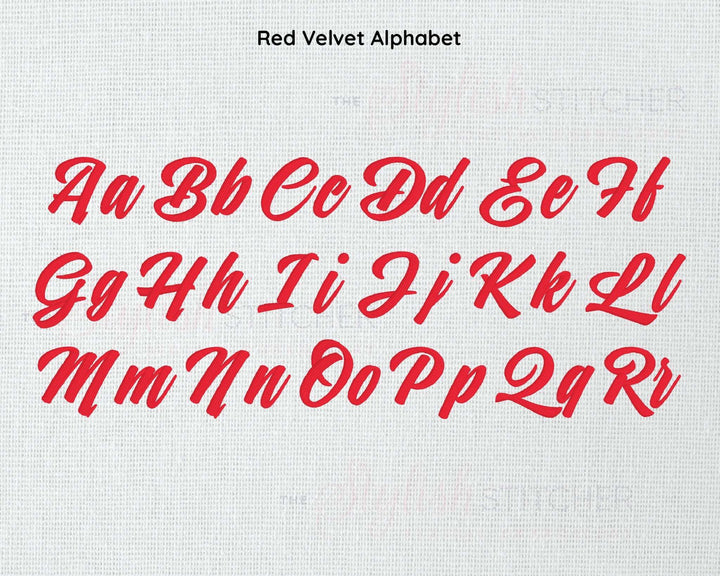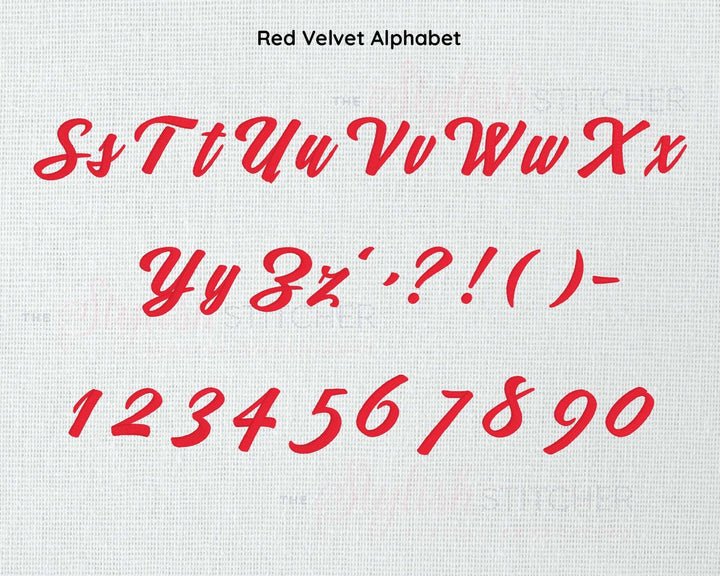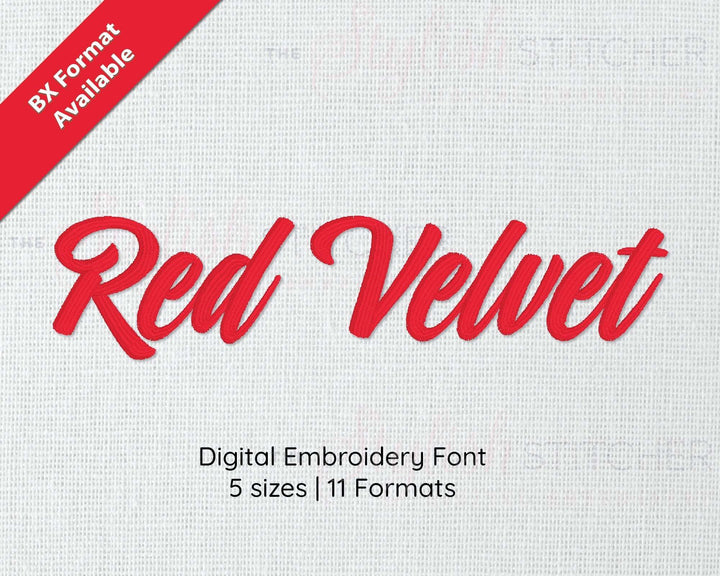
Photograph of Red Velvet embroidery font
Photograph of Red velvet embroidery font alphabet
Photograph of Red Velvet embroidery font alphabet
Red Velvet Cursive Script Digital Embroidery Font
Transform your embroidery projects with Red Velvet, a meticulously hand-digitized font that exudes sophistication and charm.
Experience the seamless stitching and exquisite detail that only Red Velvet can provide.